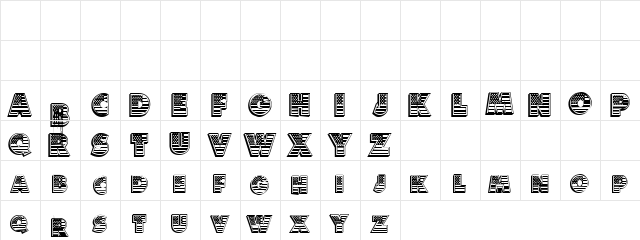
Dreamy Americs Regular
Design Context for Dreamy Americs Typeface
Dreamy Americs is a composed and adaptable typeface that performs quietly and consistently across a wide range of design contexts.